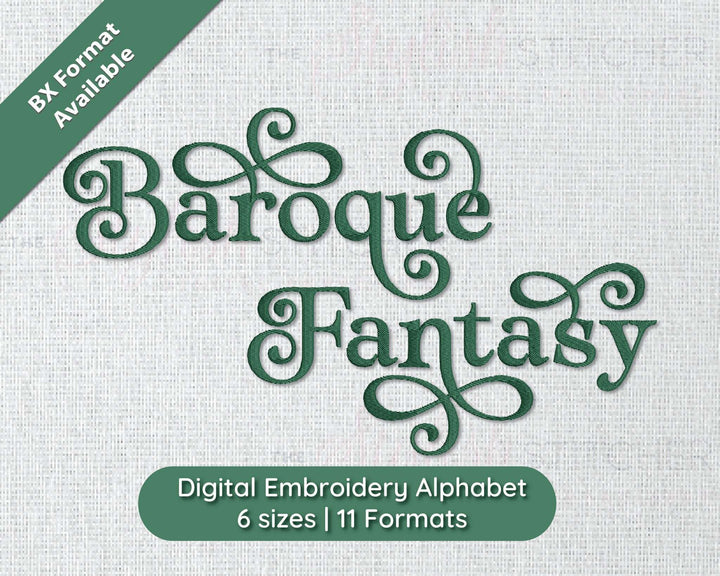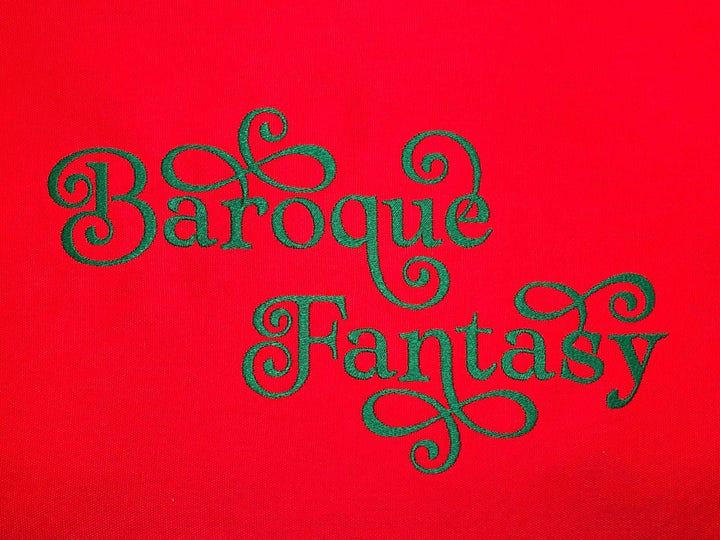
Baroque Fantasy Digital Embroidery Font
Dive into the ornate world of text with Baroque Fantasy, a fill stitch script font that exudes elegance and sophistication. Whether you are enhancing your home decor with personalized items or elevating your branding with luxurious embroidered logos, Baroque Fantasy is versatile enough to bring your creative visions to life. Its smooth, cursive flow is reminiscent of handwritten calligraphy, imbuing your designs with a sense of authenticity and artistry.
Stitch Type: Fill Stitch